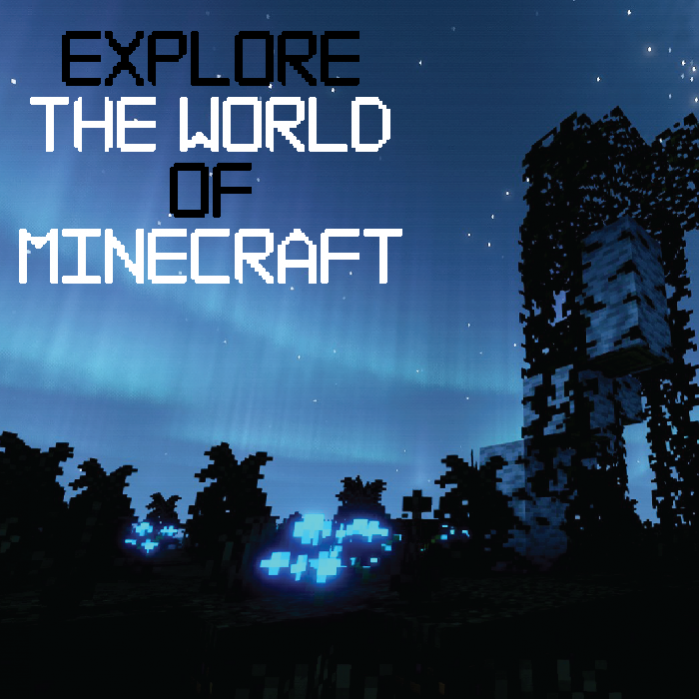
• Have you ever wanted a font that represents video game pixels? Well, introducing soft pixels, a font so similar to 8-bit video game letters. Use this font to improve your video game design.
Love the retro!! Would be great to use on twich streams!!
Soft Pixelby Dym Renta